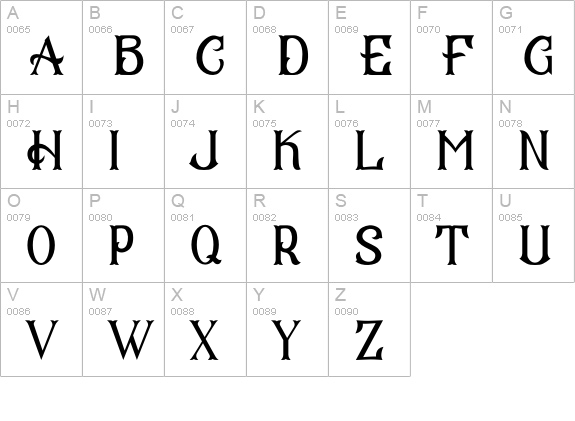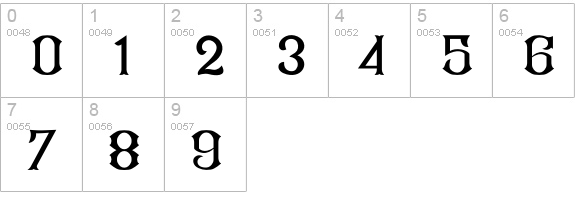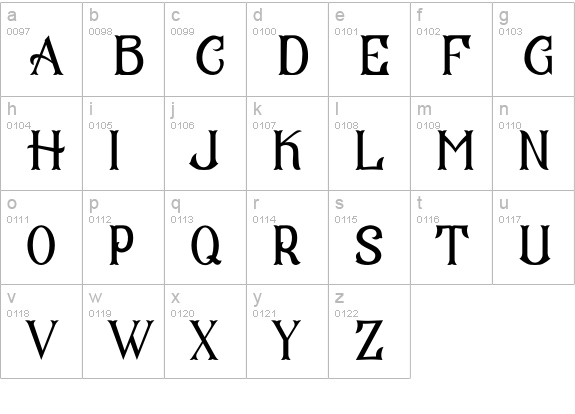
CS Mulan Regular Font Details
CS Mulan Regular is the standard, neutral variant in the CS typeface family \xE2\x80\x94 well suited to general body text, paragraphs, and standard typographic work.
CS Mulan Regular font is a stylish and versatile typeface that exudes elegance and sophistication. With its clean lines and balanced proportions, this font is perfect for a wide range of design projects, from branding to editorial design. The timeless appeal of CS Mulan Regular font makes it a popular choice for designers looking to add a touch of class to their work.